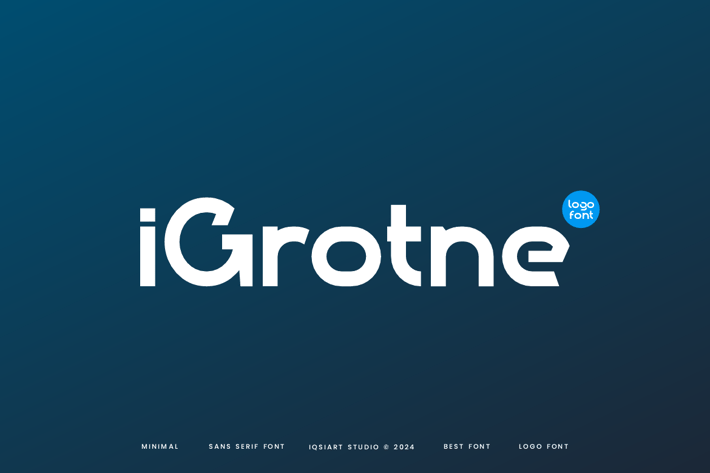
Igrotne Logo Font
Igrotne Logo Font Font is a best and authentic display font.
Main Features
+ Multilingual Support
+ Extended Character Set
+ Uppercase & Lowercase
+ Ligatures & Alternate
+ Numeral & Punctuations